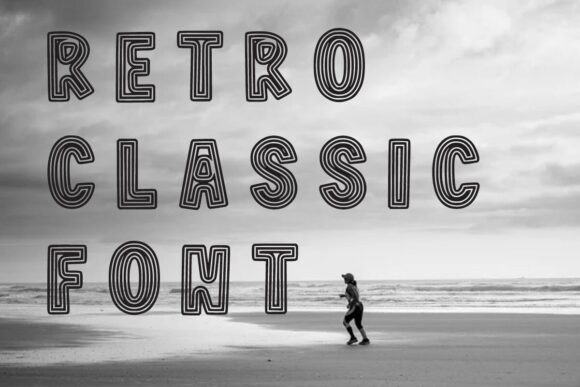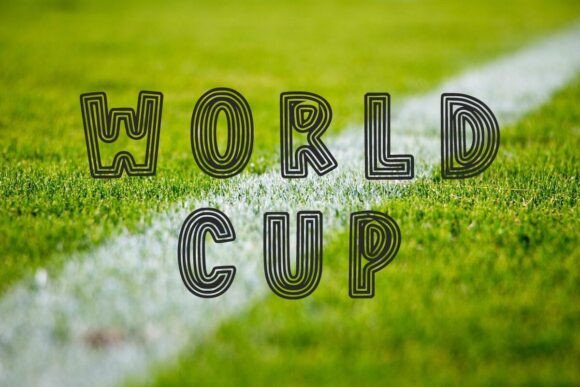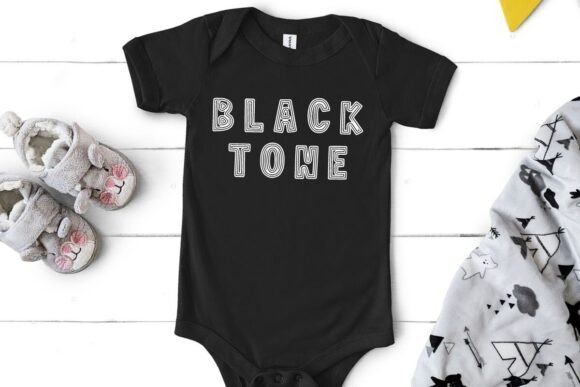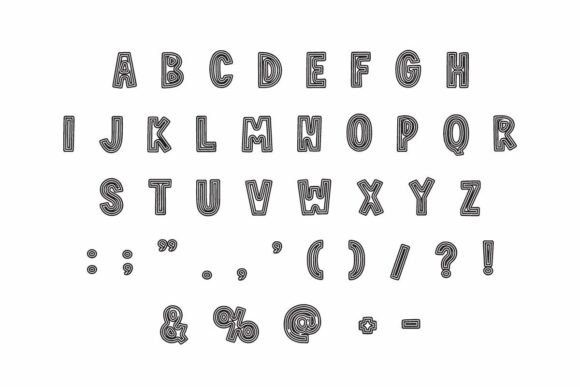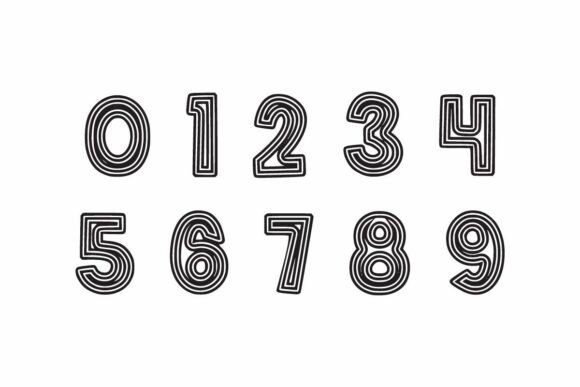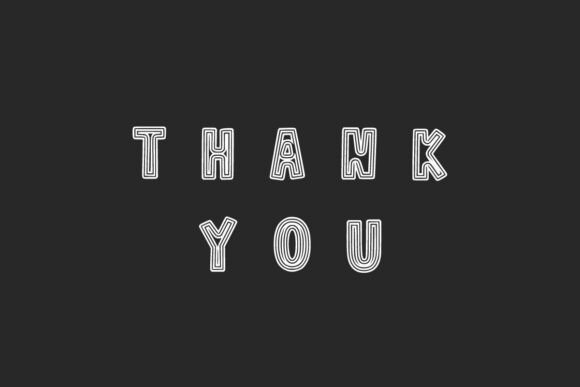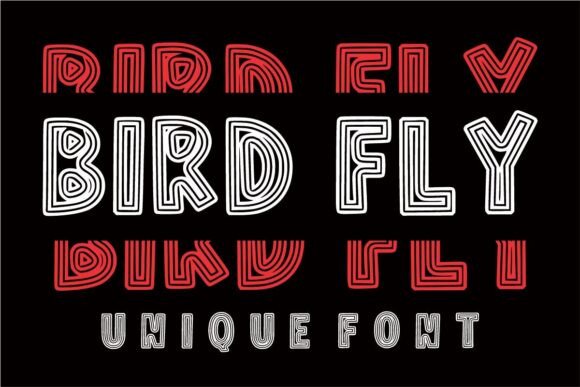
Bird Fly Font: Elevate Your Designs with a Retro, Classic, and Bold Display Font
Are you on the hunt for a font that adds a touch of nostalgia and sophistication to your designs? Look no further than the Bird Fly Font. This stunning contour layer font is perfect for designers and crafters who want to create visually appealing projects that stand out from the crowd. In this article, we’ll dive into the world of Bird Fly Font and explore its features, uses, and benefits.
What is Bird Fly Font?
Bird Fly Font is a unique and versatile display font that boasts a retro, classic, and bold style. Its contour layer design gives it a distinctive look that’s sure to grab attention. With its clean lines, elegant curves, and precise details, this font is perfect for creating a wide range of projects, from blog posts and logos to branding, ads, invitations, and more.
Key Features of Bird Fly Font
• Contour Layer Design: Bird Fly Font features a beautiful contour layer design that adds depth and dimension to your text.
• Retro, Classic, and Bold Style: This font’s retro, classic, and bold style makes it perfect for creating vintage-inspired designs, logos, and branding materials.
• High Versatility: Bird Fly Font can be used for a wide range of projects, including blog posts, logos, branding, ads, invitations, greeting cards, planners, photo albums, decorations, and more.
• Elegant and Sophisticated: This font’s elegant and sophisticated design makes it perfect for creating high-end designs that exude luxury and refinement.
Uses of Bird Fly Font
Bird Fly Font is an incredibly versatile font that can be used for a wide range of projects, including:
• Blog Posts: Add a touch of elegance and sophistication to your blog posts with Bird Fly Font.
• Logos and Branding: Create stunning logos and branding materials that stand out from the crowd with this unique font.
• Ads and Marketing Materials: Use Bird Fly Font to create eye-catching ads and marketing materials that grab attention.
• Invitations and Greeting Cards: Add a touch of class and sophistication to your invitations and greeting cards with this beautiful font.
• Planners and Photo Albums: Create stunning planners and photo albums that showcase your creativity and style.
• Decorations and Crafts: Use Bird Fly Font to create beautiful decorations and crafts that add a personal touch to your home or office.
Benefits of Using Bird Fly Font
So why choose Bird Fly Font for your next project? Here are just a few benefits of using this amazing font:
• Unique and Eye-Catching: Bird Fly Font is a one-of-a-kind font that adds a touch of uniqueness and style to your designs.
• Highly Versatile: This font can be used for a wide range of projects, making it a great addition to your font library.
• Elegant and Sophisticated: Bird Fly Font’s elegant and sophisticated design makes it perfect for creating high-end designs that exude luxury and refinement.
• Easy to Read: Despite its bold and decorative style, Bird Fly Font is easy to read, making it perfect for body text and headings.
In conclusion, Bird Fly Font is a stunning contour layer font that’s perfect for designers and crafters who want to add a touch of nostalgia and sophistication to their designs. With its retro, classic, and bold style, high versatility, and elegant design, this font is sure to become a favorite in your font library. Whether you’re creating blog posts, logos, branding materials, ads, invitations, or decorations, Bird Fly Font is the perfect choice. So why wait? Download Bird Fly Font today and take your designs to the next level!